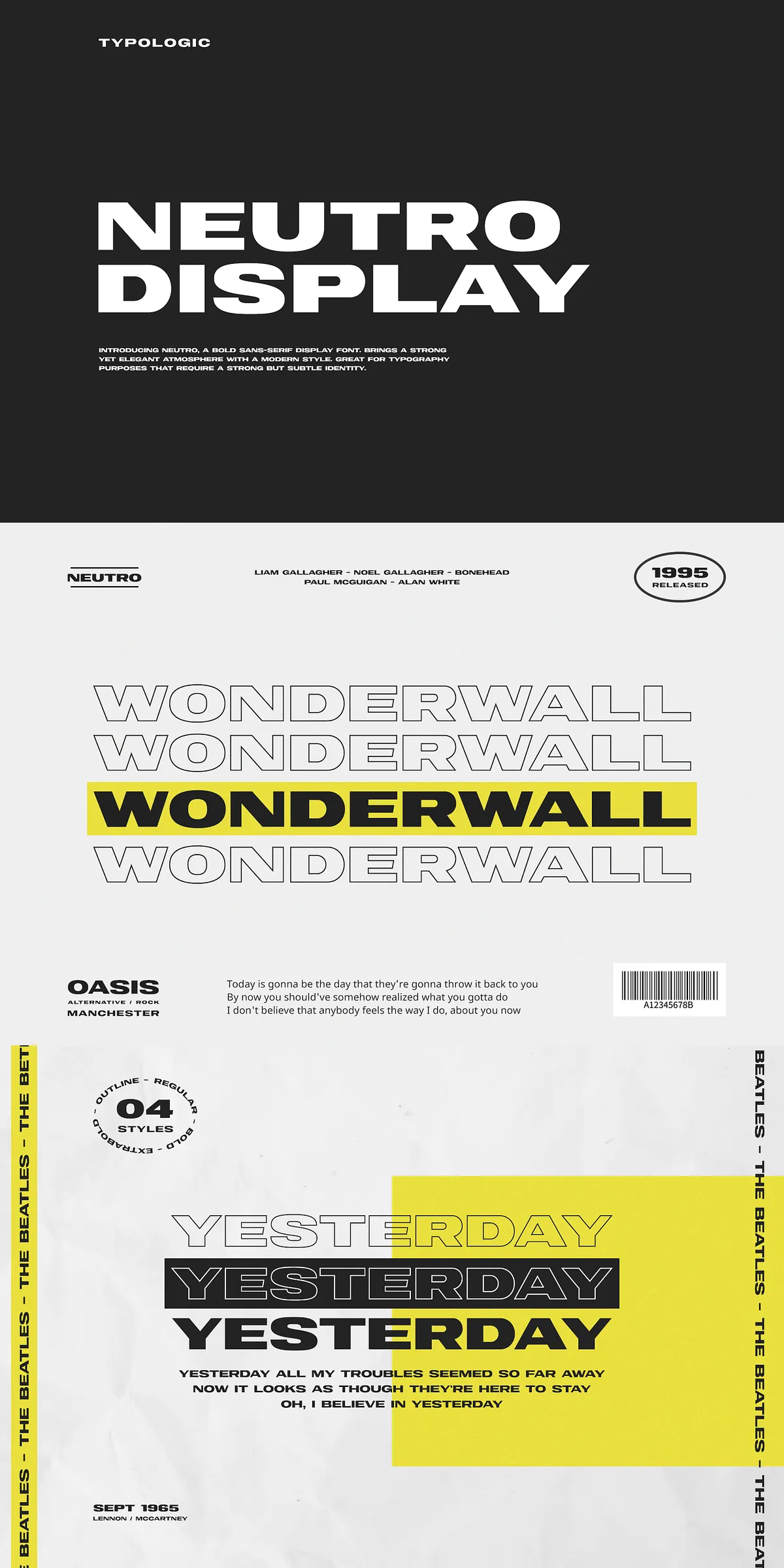
Stand out in a world of noise with Neutro, a display-ready sans-serif font that blends architectural strength with refined minimalism. Designed for creators who value impact without excess, Neutro delivers a powerful visual statement that’s as elegant as it is commanding. Whether you’re crafting a high-profile logo, a cinematic headline, or a branding campaign that demands attention, Neutro ensures your message doesn’t just land—it soars.
Power Meets Precision: The Three-Weight Mastery
Neutro isn’t just bold—it’s engineered for impact at every level. From subtle authority to commanding dominance, the font’s core strength lies in its intelligent weight system:
- Regular: The foundation of understated confidence. Ideal for clean headlines, subtle branding elements, or body text that needs to feel modern and intentional.
- Bold: Step up the intensity. Perfect for call-to-action buttons, poster titles, or any element where you want immediate visual hierarchy and presence.
- Extrabold: Command the center stage. Use this weight to create dramatic headlines, app logos, or social media visuals that stop the scroll with sheer power.
Each weight is optimized for maximum readability and sharpness, ensuring your type remains crisp and professional across screens and print.
The Final Edge: Neutro Outline Version
For designers who crave visual experimentation and dynamic styling, the exclusive Outline Version unlocks new creative dimensions. This variant transforms Neutro’s clean lines into open, graphic shapes, allowing you to:
- Apply custom fills, gradients, or textures
- Create layered design elements with depth and dimension
- Use in animations, motion graphics, or abstract branding
The Outline Version is more than a style—it’s a creative tool that expands Neutro beyond traditional typography into the realm of visual storytelling.
Why Neutro Is the Go-To Font for Modern Design
Neutro isn’t just a font. It’s a design strategy. It’s the ideal choice for projects that demand both strength and subtlety—an identity that speaks without shouting. Choose Neutro for:
- Branding & Logos: Build a strong, memorable brand voice with a font that feels premium and intentional.
- Web & App Headlines: Create impactful titles and navigation elements that guide users with clarity and modern flair.
- Posters & Exhibitions: Make your promotional content unforgettable with bold, high-contrast typography.
- Social Media Content: Design eye-catching posts, stories, and banners that outperform the competition.
Don’t just communicate. Influence. Don’t just design. Command attention. Neutro is more than a font—it’s your visual voice. It’s confidence in typeface form. It’s the bridge between boldness and elegance.